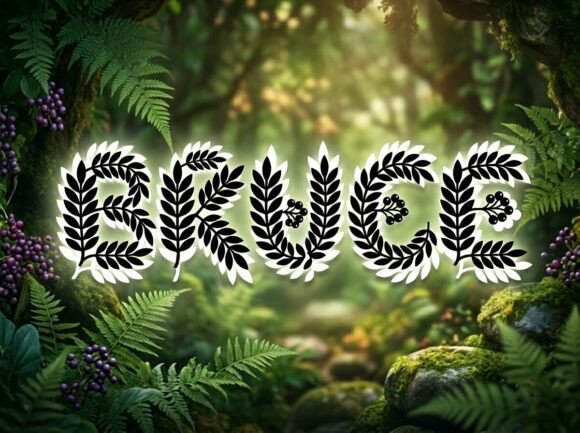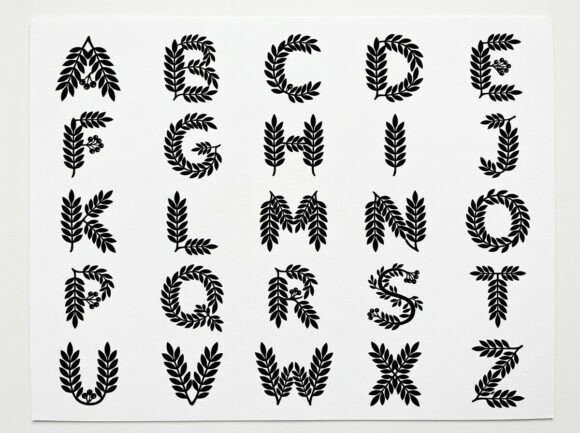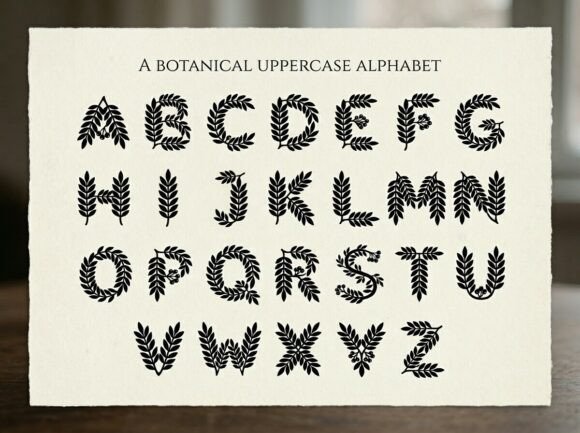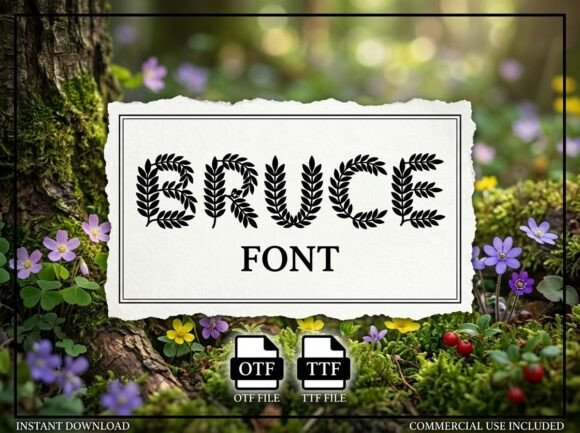
Bruce Font: The Ultimate Avant-Garde Display Font for Creative Rebels
In the world of typography, a new star has emerged: Bruce Font. This avant-garde decorative display font is engineered to be the focal point of any composition, making it perfect for creators who refuse to blend in. Characterized by its commanding visual personality and unique artistic flourishes, Bruce Font is a game-changer for designers and crafters looking to make a statement.
A Font that Dares to be Different
Bruce Font is not just a typeface; it’s a work of art. Its strong, artistic soul is balanced by a high-end, polished finish, making it suitable for luxury packaging, experimental editorial layouts, and a wide range of creative projects. Whether you’re a graphic designer, a crafty DIY enthusiast, or a branding expert, Bruce Font is the perfect tool to help you stand out from the crowd.
Ideal for High-Impact Designs
Bruce Font is specifically designed for high-impact designs that demand attention. Its unique character makes it ideal for:
- High-impact headlines that grab attention
- Signature logos and branding that make a statement
- Conceptual packaging that stands out on store shelves
- Poster and social media design that demands engagement
What Sets Bruce Font Apart
Bruce Font is an all-caps (uppercase only) display typeface, which means that every letter is a standalone work of art. By omitting lowercase characters, the designer has focused entirely on the intricate craftsmanship of every individual letter, ensuring each one is a masterpiece. This attention to detail makes Bruce Font perfect for designs where typography is the star of the show.
Bruce Font is a game-changing display font that’s perfect for creative rebels who refuse to blend in. Its unique artistic flourishes, commanding visual personality, and high-end finish make it suitable for a wide range of creative projects. Whether you’re a designer, a crafty DIY enthusiast, or a branding expert, Bruce Font is the perfect tool to help you make a statement. So why settle for ordinary typography when you can make a statement with Bruce Font?